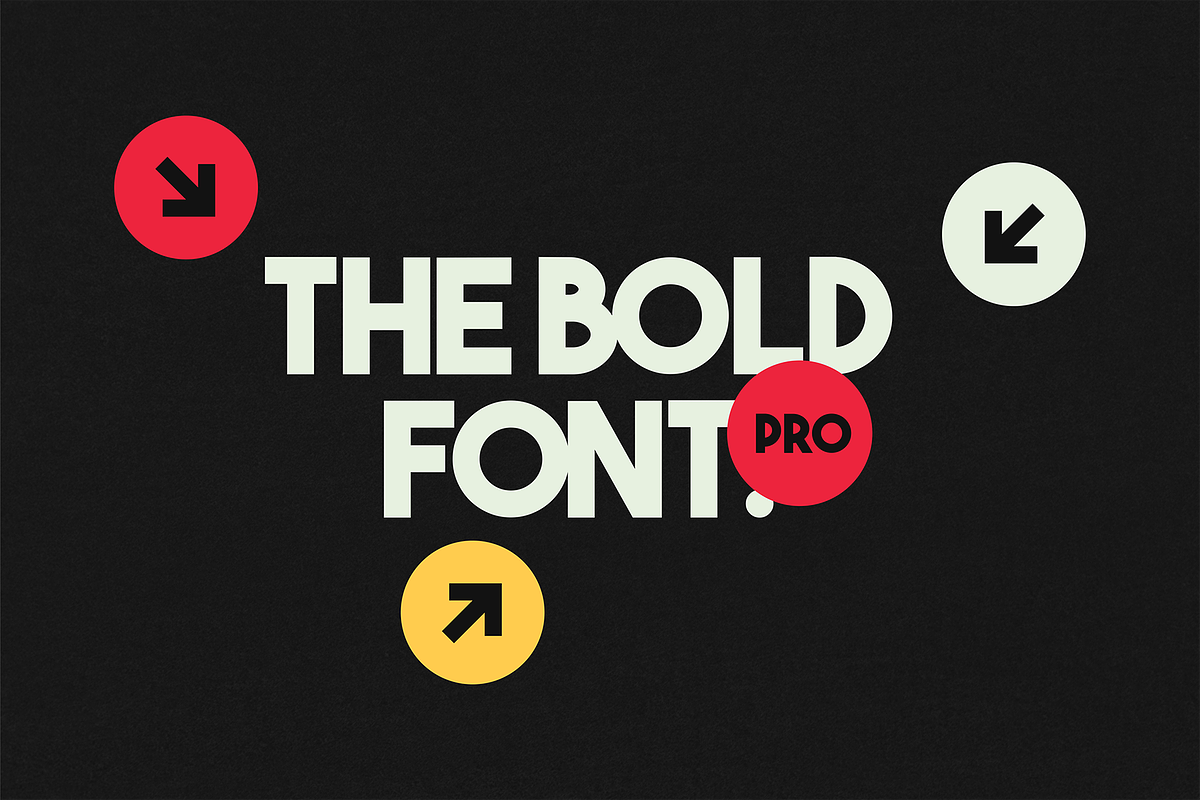
THE BOLD FONT. PRO Free Download is a powerhouse typeface built for impact, clarity, and maximum presence. With its thick strokes, strong geometry, and modern structure, this font is ideal for headlines, posters, branding, signage, sports graphics, and marketing campaigns that demand attention.
Its all-caps style exudes confidence and authority—making it the perfect choice when your message needs to be loud and clear. Whether you're working on dynamic logos or high-energy print materials, THE BOLD FONT. PRO gets the job done with bold precision.
Designers love THE BOLD FONT. PRO for its simplicity, power, and versatility across both digital and print. Want to make a statement? Download THE BOLD FONT. PRO Free Download and let your typography speak volumes.